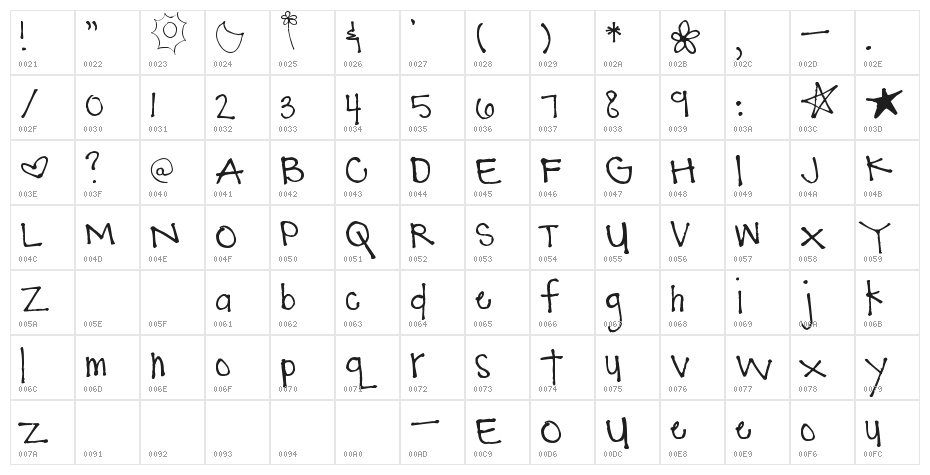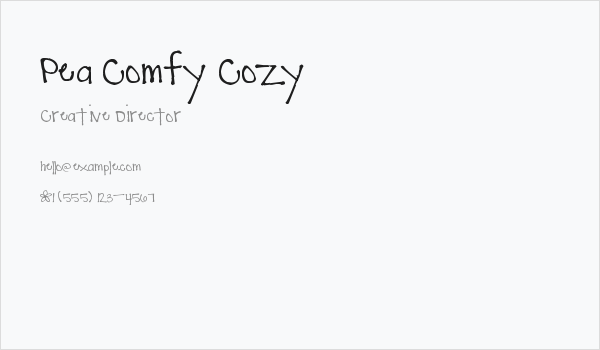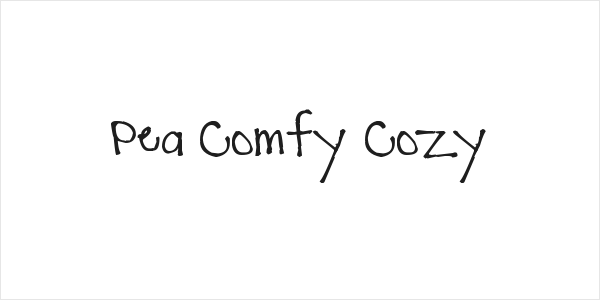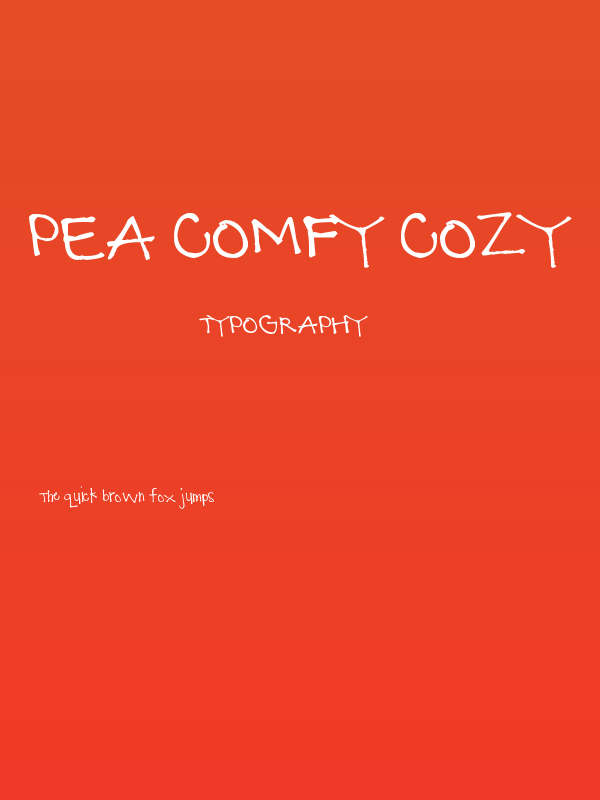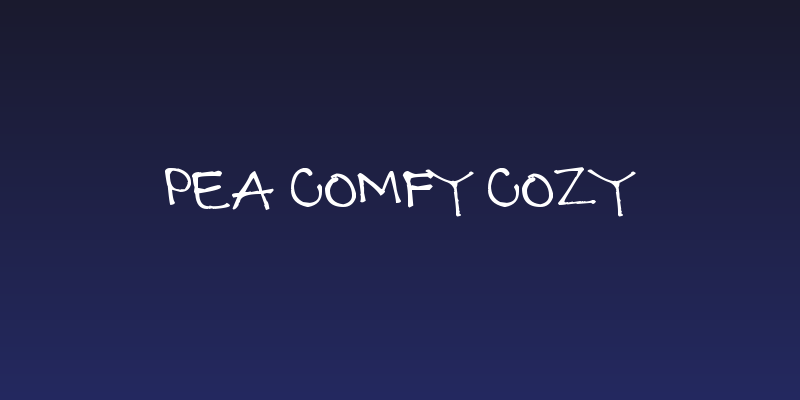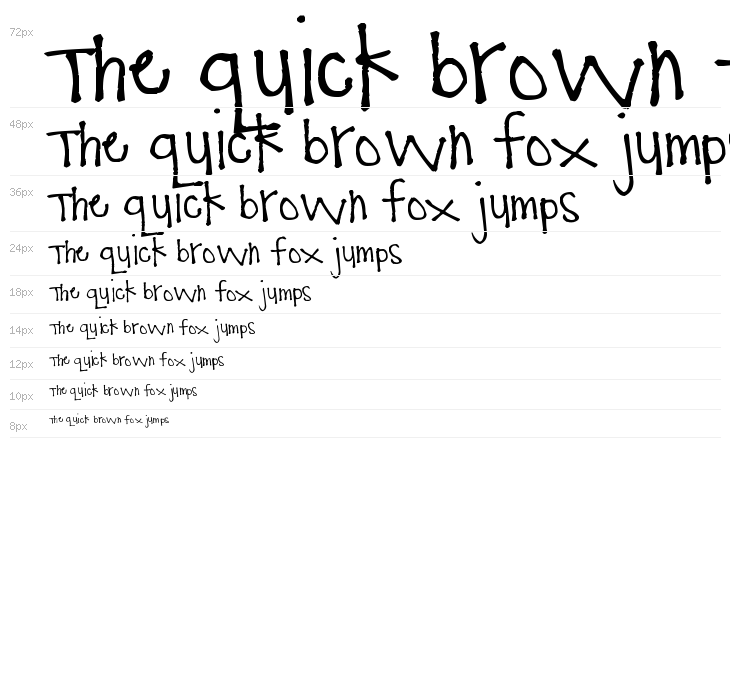
Pea Comfy Cozy Font
Pea Comfy Cozy Description
This font exudes a playful and casual vibe, characterized by its hand-drawn appearance. The letters are irregular and slightly tilted, giving it a whimsical and informal feel. The strokes vary in thickness, adding to the font's charm and personality. The uppercase and lowercase letters maintain a consistent style, with rounded edges and a slightly uneven baseline. Numbers and special characters follow the same playful design, making the font versatile for creative projects. Its unique style makes it suitable for designs that require a personal touch, such as greeting cards, children's books, or playful branding.
| Use Case | Headlines, Creative projects, Informal designs |
| Proposed Projects | Ideal for greeting cards, children's books, playful branding, and creative projects. |